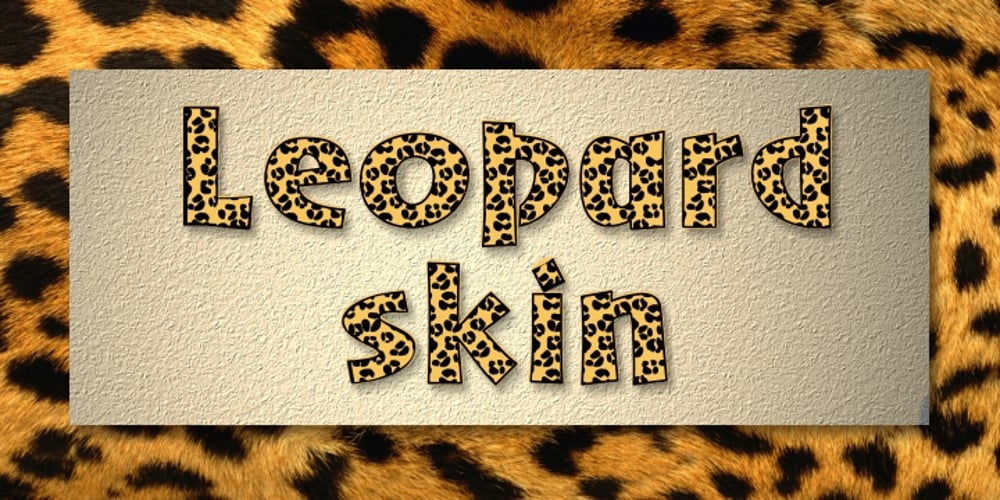
LeopardSkin Font Family was designed by Anton Scholtz, Merle Scholtz and published by Scholtz Fonts. LeopardSkin contains 2 styles and family package options. LeopardSkin is an exciting, contemporary display font, incorporating the distinctive markings of one of Africa’s most famous “big cats”. Two versions are available: LeopardSkin Aarde, based on the Aarde Black font, is best used in conjunction with Aarde Black or Aarde Outline. LeopardSkin Umkhonto is based on the best-selling Umkhonto font, and may be used in conjunction with the Umkhonto font collection. The popularity of the “animal skin” look in contmporary clothing and soft furnishing design make LeopardSkin a must for artists on the creative edge of contemporary design.